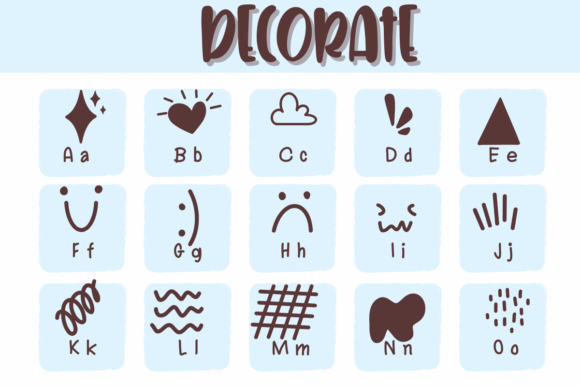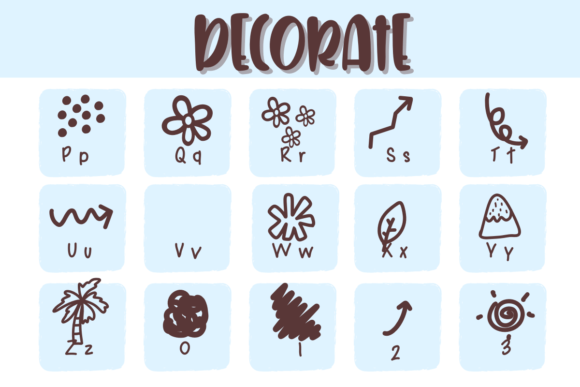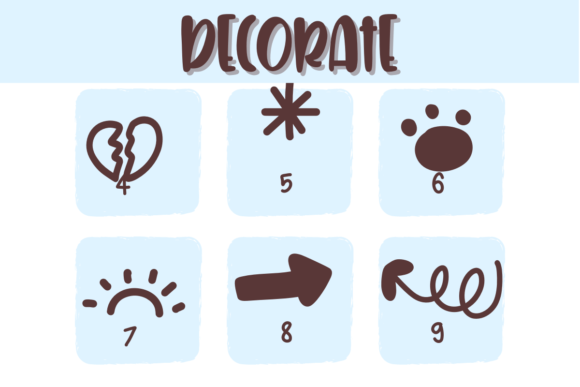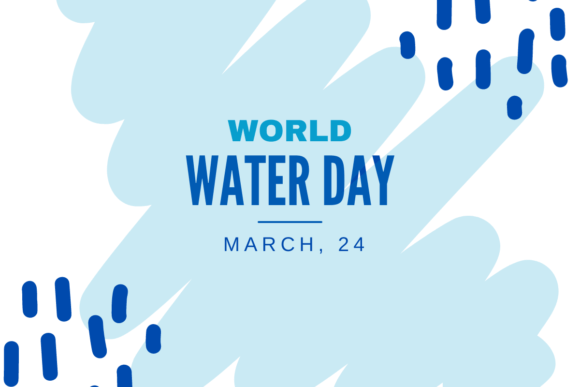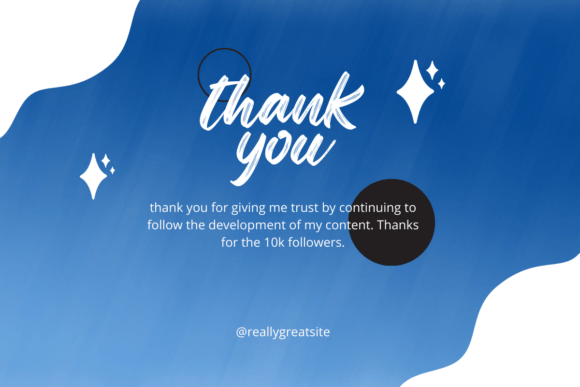
The Power of Decorate Font: Elevate Your Creative Projects with a Sketch-Style Twist
I’ll never forget the time I was working on a wedding invitation project, trying to find the perfect font to match the client’s whimsical theme. I scoured the internet, tried out countless fonts, but nothing seemed quite right. That was until I stumbled upon Decorate, a dingbats font with a charming sketch-style theme. It was love at first sight! 💕
With Decorate, I was able to add a touch of personality to the invitation, making it truly unforgettable. And that’s exactly what I want to share with you today – the magic of Decorate font and how it can elevate your creative projects.
- Unique and quirky design that’s perfect for creative projects ✅
- Extensive range of glyphs and stylistic alternates to experiment with 🤩
- Works beautifully for both digital and print projects 📊
- Easy to pair with other fonts for a cohesive look 👫
Small Quirks to Keep in Mind ⚠️
While Decorate is an amazing font, there are a few things to be aware of:
- Some characters may not work well in very small sizes ⚠️
- Limited language support, so double-check for your specific needs 🤔
The Story Behind Decorate: A Designer’s Inspiration
According to the designer, Decorate was inspired by the world of hand-drawn illustrations and the desire to create a font that was both playful and sophisticated. The result is a unique and versatile font that’s perfect for a wide range of creative projects.
Q: What type of projects is Decorate best suited for?
A: Decorate is perfect for creative projects like wedding invitations, DIY crafts, decorations, logos, and more!
Q: Is Decorate available in different languages?
A: Decorate has limited language support. Please check the font’s specifications to ensure it covers your language needs.
Q: Can I combine Decorate with other fonts?
A: Absolutely! Decorate pairs well with many other fonts. Feel free to experiment and find your perfect match.